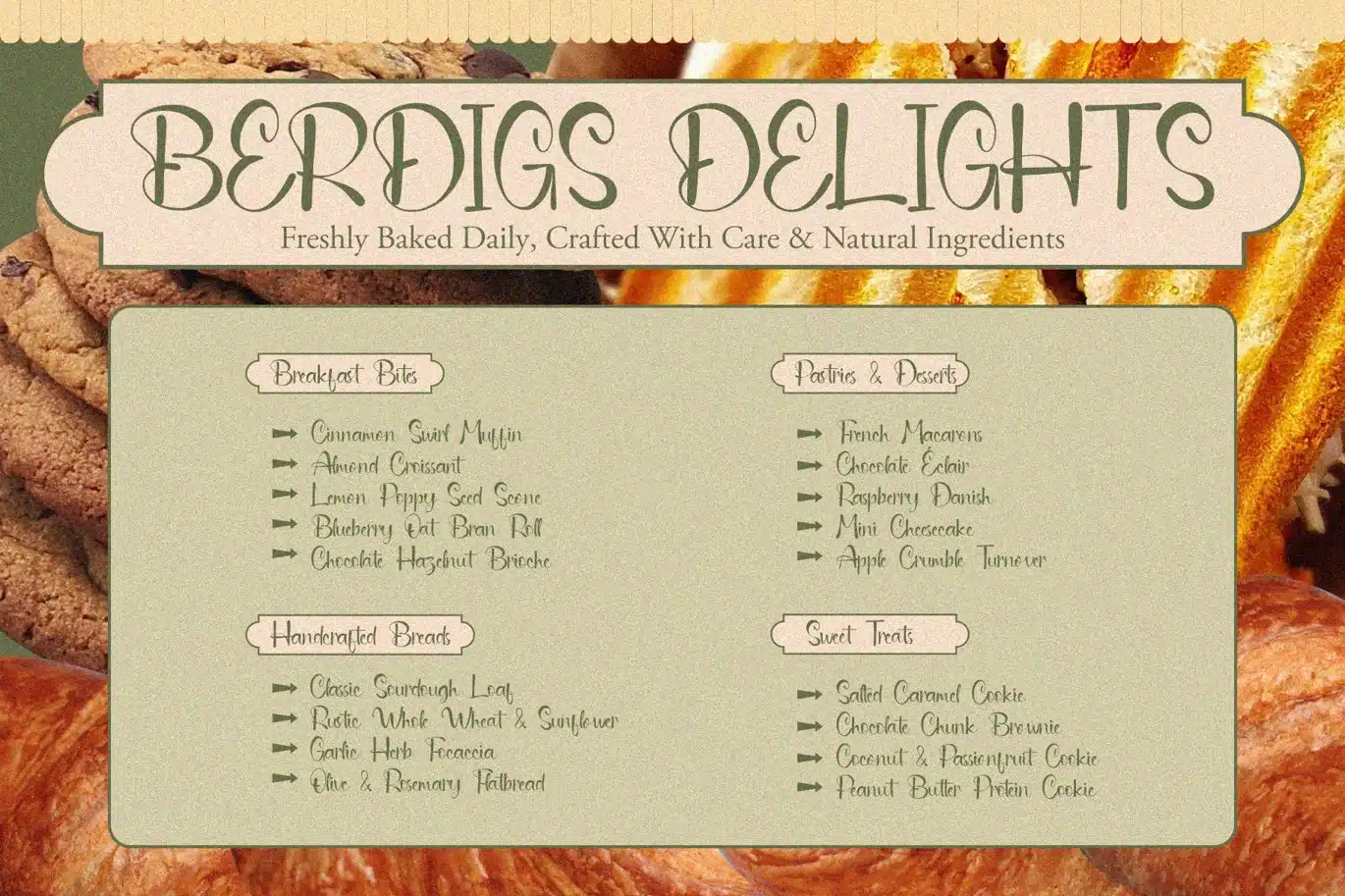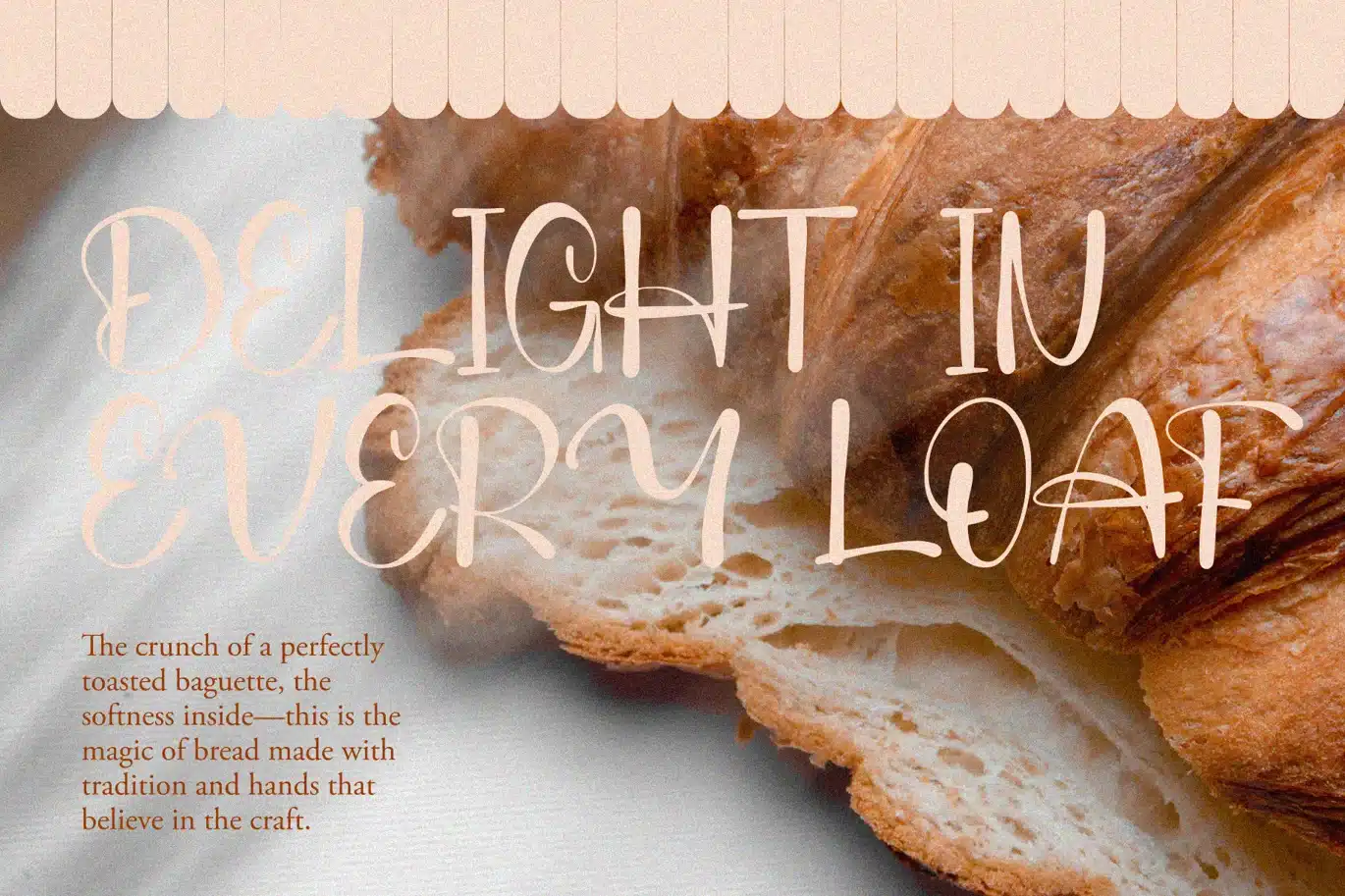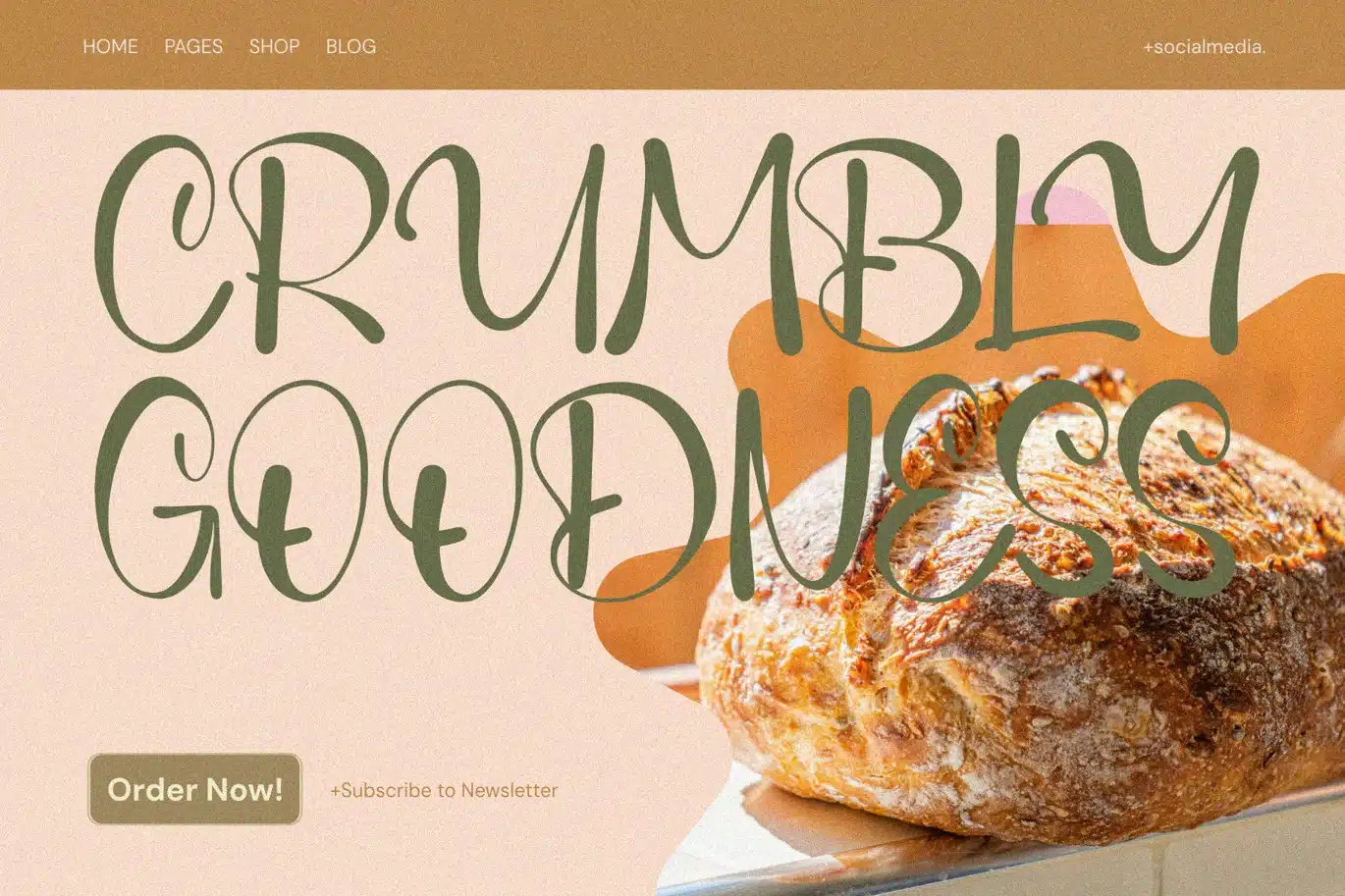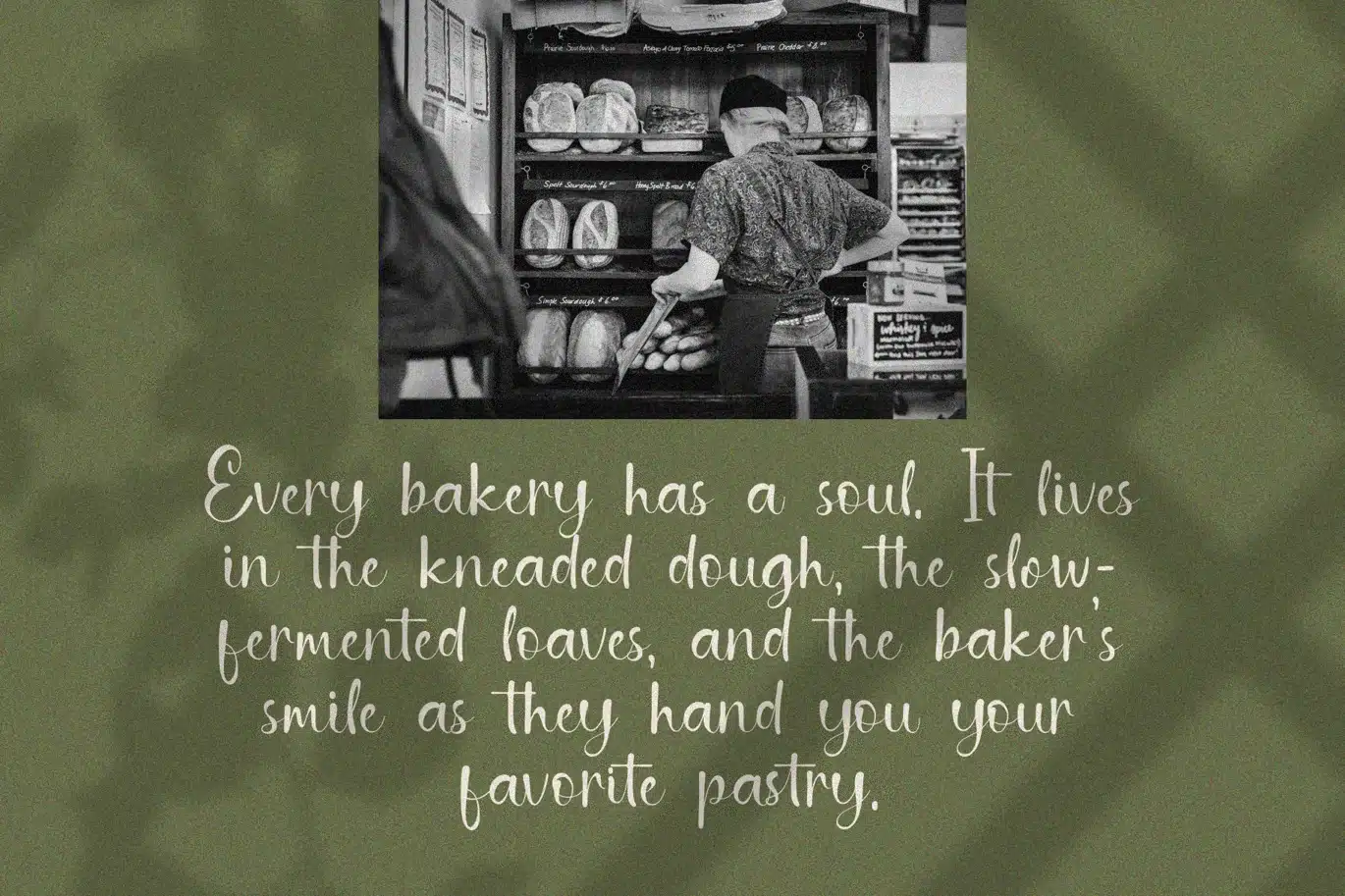
Berdigs — Bakery Food Branding Font
BERDIGS is a charming, handwritten brush font designed with the cozy, inviting spirit of your favorite bakery in mind. With its smooth curves and warm, artisanal feel, this typeface perfectly captures the essence of freshly baked goods, handwritten chalkboard menus, and rustic packaging. Whether you’re branding a new bakery, designing a café menu, or creating social media posts for your pastry shop, BERDIGS brings an irresistible, handcrafted aesthetic that makes your audience feel right at home.
More than just a font, BERDIGS is a visual invitation to indulge. Its playful yet elegant letterforms are crafted to evoke the comfort of warm bread, the sweetness of cupcakes, and the joy of a well-made croissant. Ideal for headlines, packaging labels, and promotional materials, BERDIGS ensures your bakery’s identity feels personal, authentic, and irresistibly delicious. With its comprehensive character set and multilingual support, it’s ready to serve customers around the world — one beautifully crafted letter at a time.
FEATURE
- Uppercase letters
- Lowercase letters
- Punctuation marks
- Symbol set
- Currency symbols
- Ligatures for natural, flowing typography
- Multilingual support for global bakery brands
PERFECT FOR
- Bakery logos and brand identities
- Café and pastry shop menu designs
- Handwritten-style packaging for cookies, bread, and cakes
- Social media graphics and Instagram posts for bakeries
- Promotional flyers and event posters for baking workshops
- Recipe cards and culinary blog headers
- Any design project that needs a warm, artisanal, and inviting bakery aesthetic